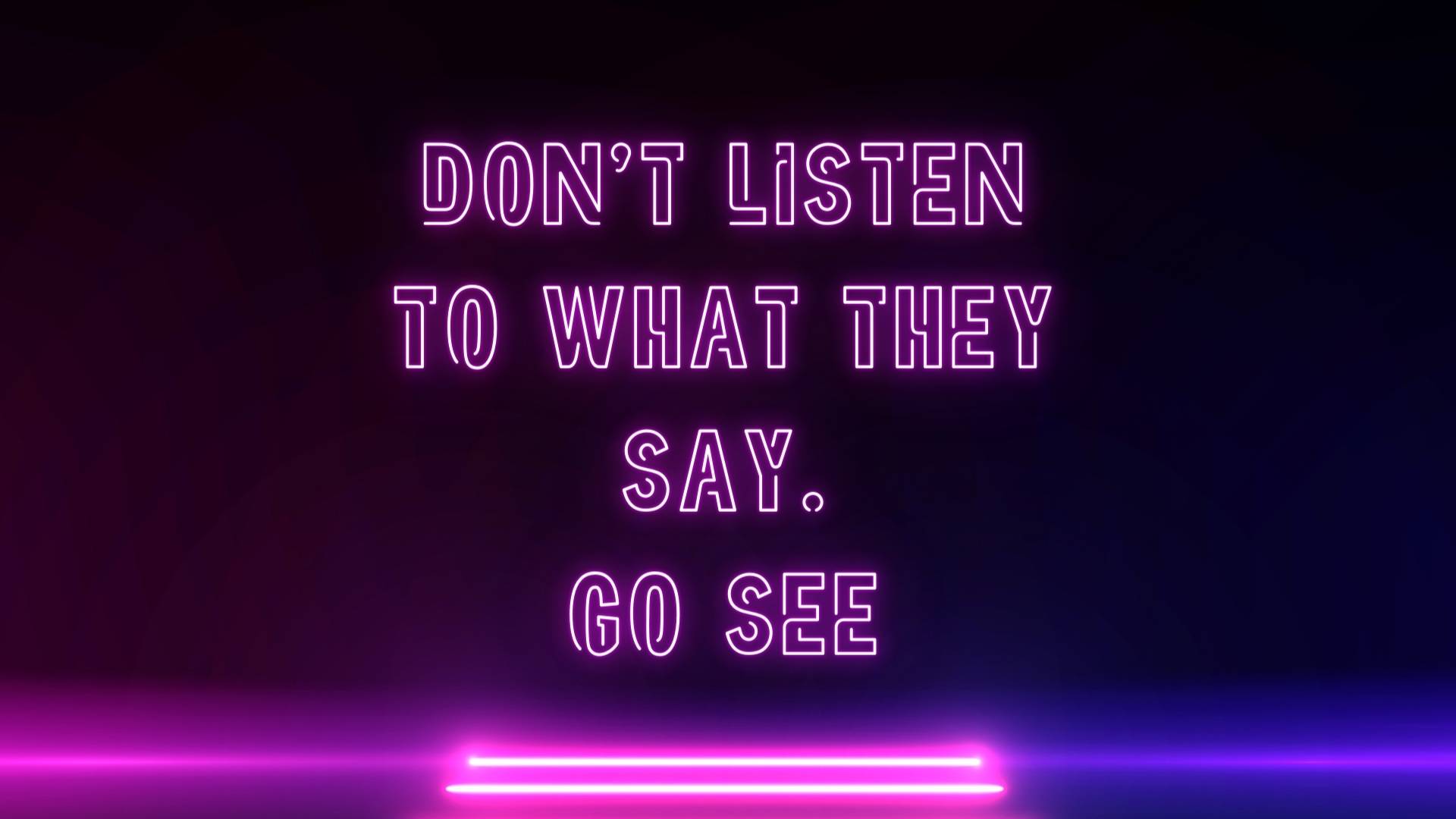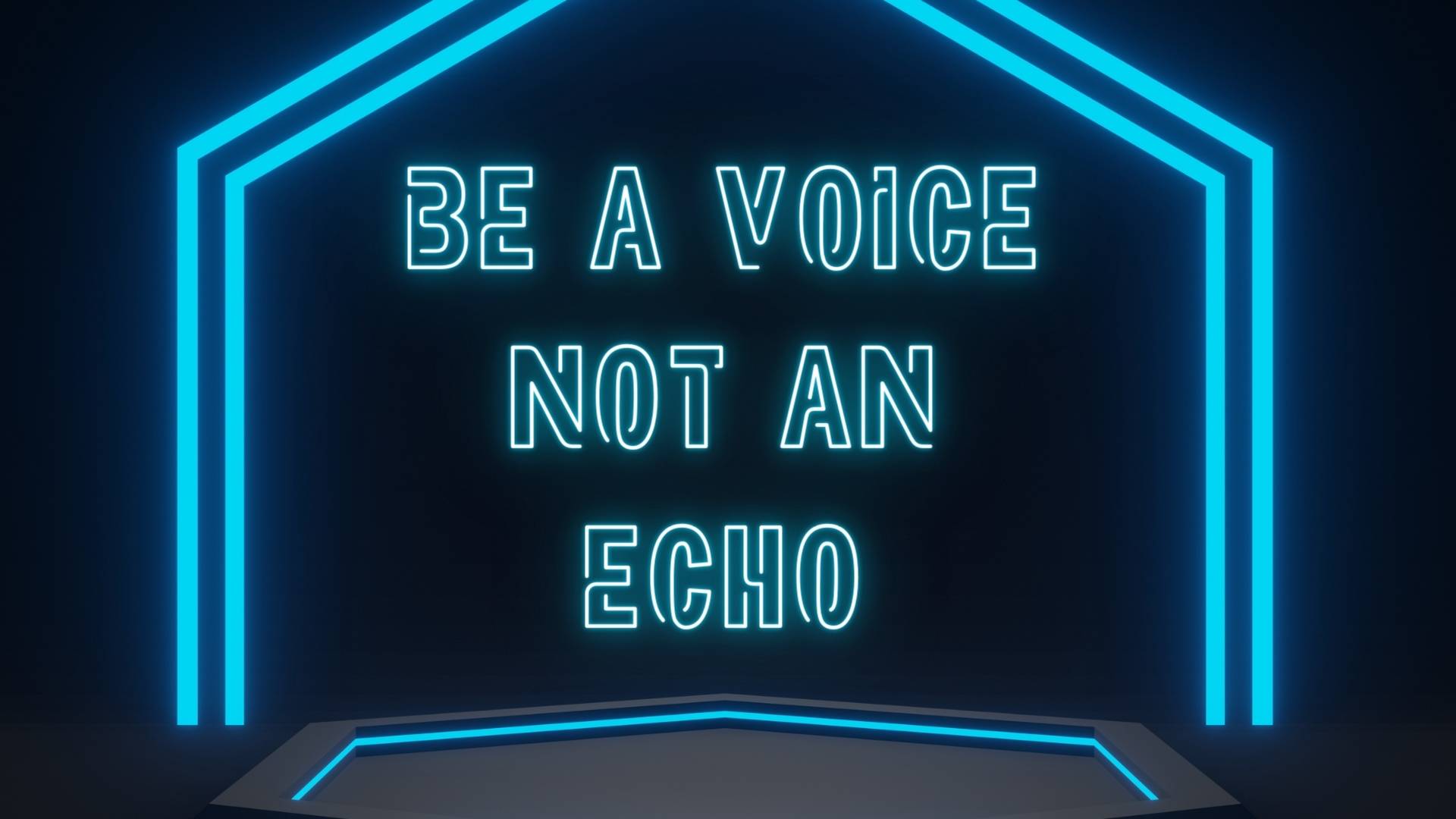
Neon Led Light Font
Neon Led Light Display Font
Representing you an astonishing, stylish, and dazzling typeface that is known as Neon Led Light Font. It is the great creation of Fontles. It belongs to the fancy family due to its pretty special and double lines letter formation. The author provides us with the font style free for personal use only.
The typeface style provides a pure neon lighting effect when you try to apply it to your valuable design project. However, the font style contains the OTF feature format and can only be used on non-commercial and personal works. It has uppercase and lowercase letters, numbers and numerals, punctuations, and special symbols.
It has a little bit different in size between uppercase and lowercase letters, such as its lowercase letters are quite smaller than its uppercase letters but seems the same in visual. The Neon Led Light Font supports a variety of languages and works friendly on any design layout. You can also try the Gotham Font with this stunning typeface with the help of the pairing function.